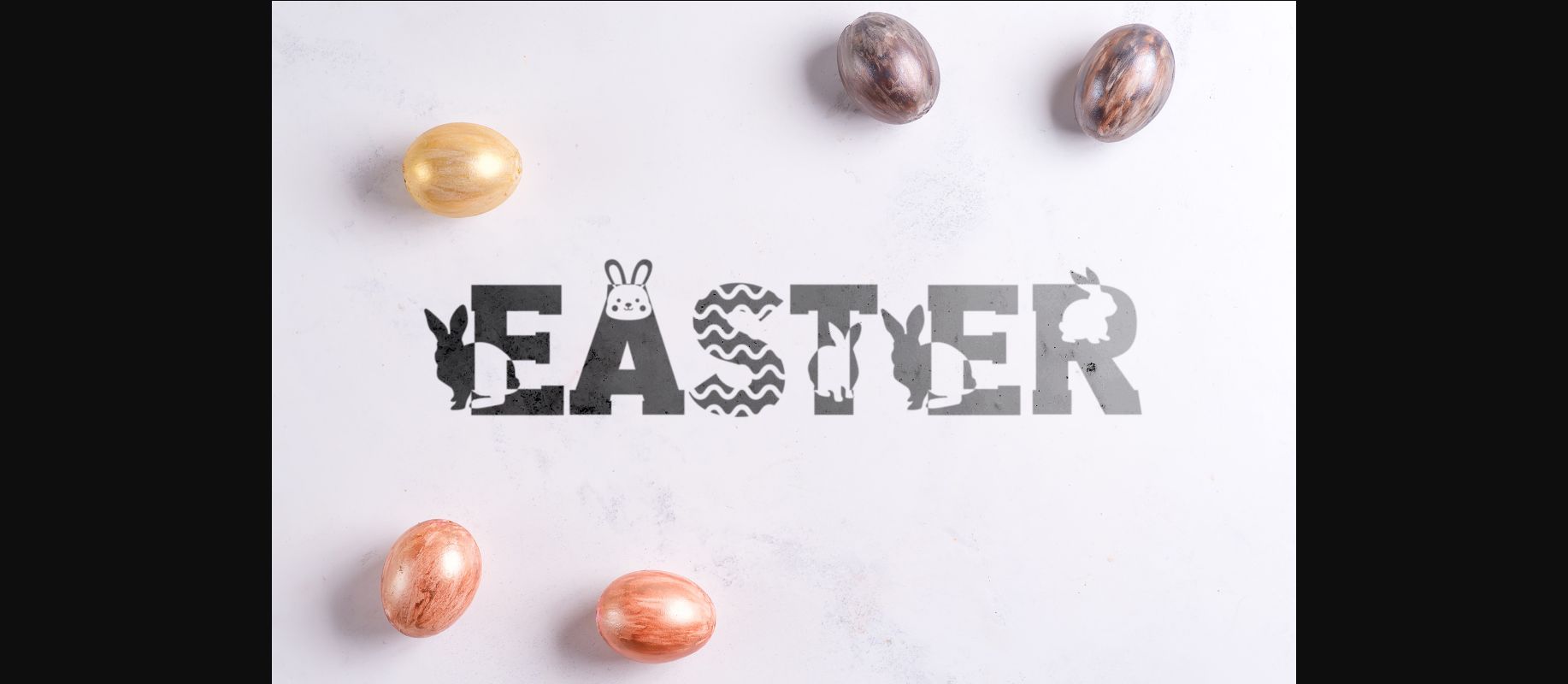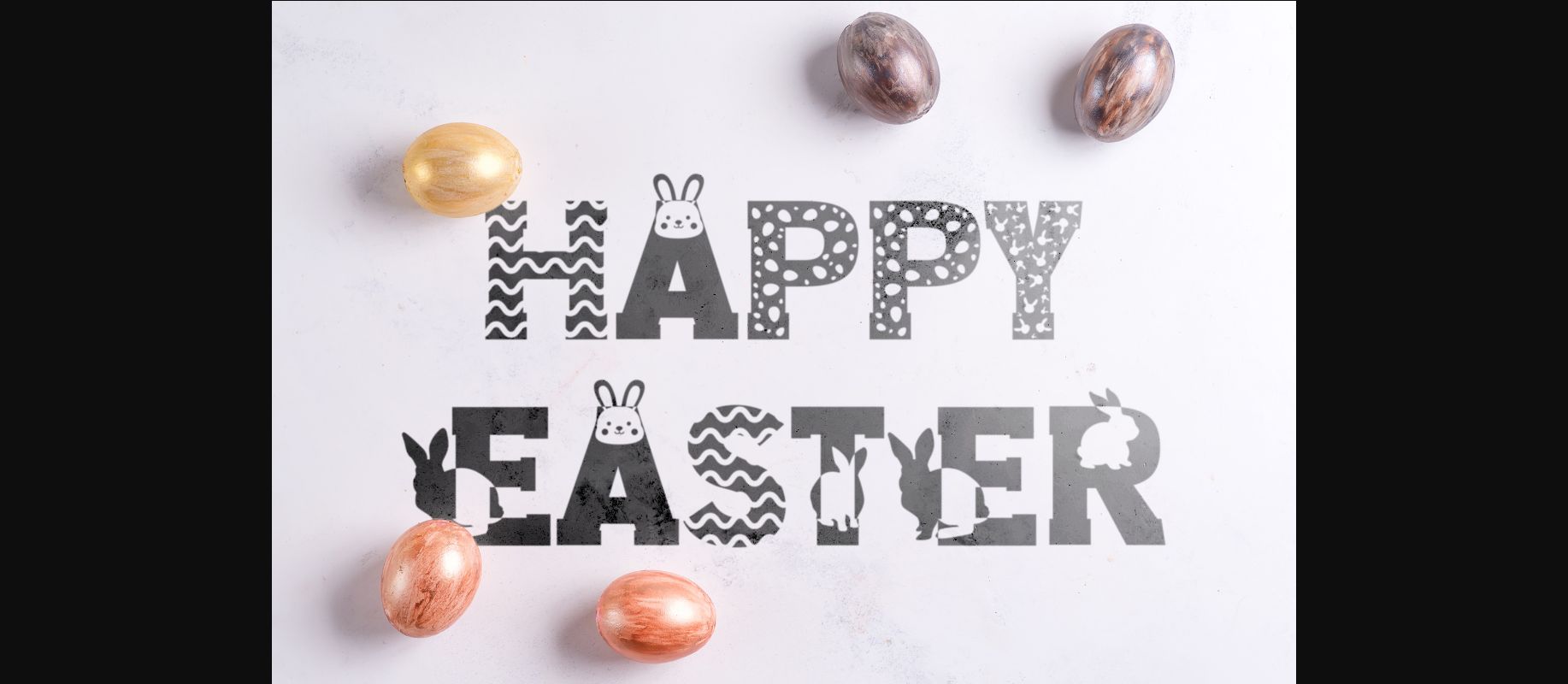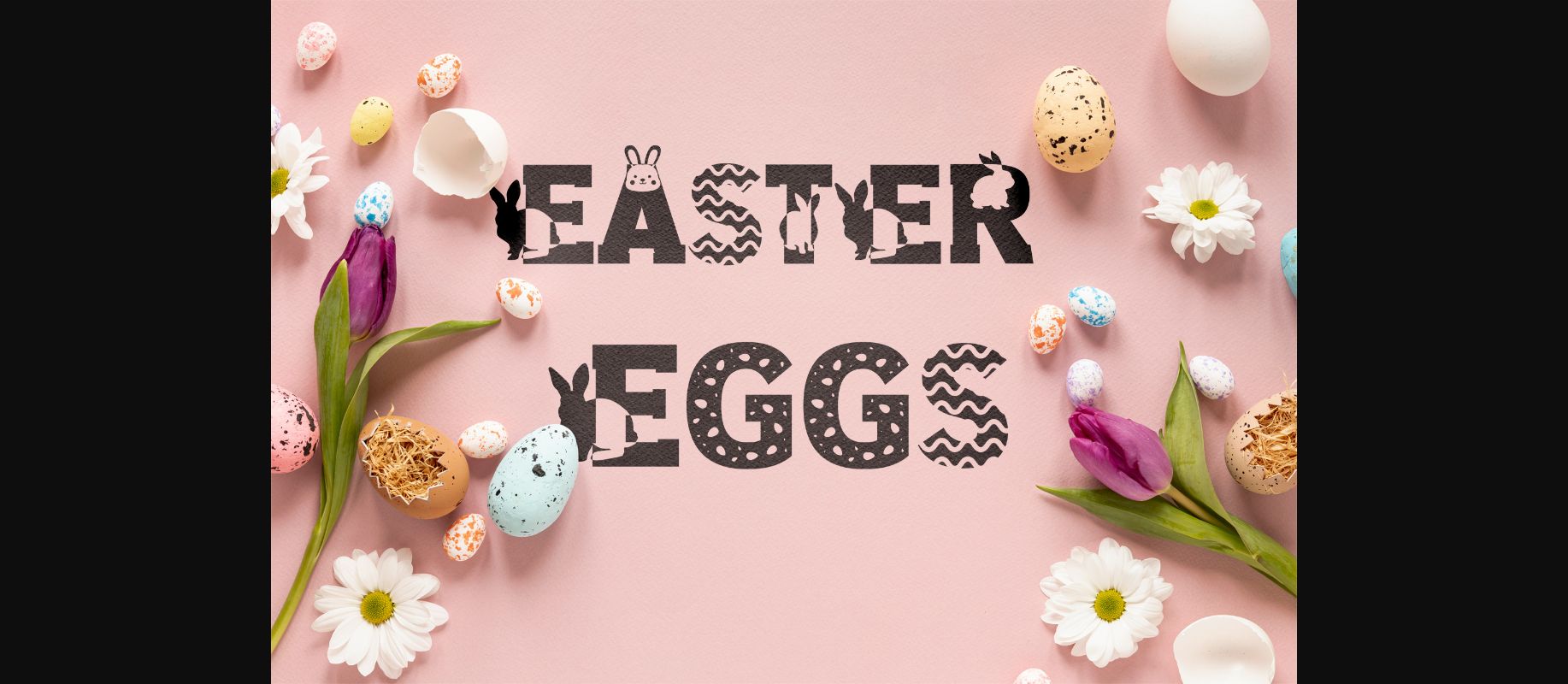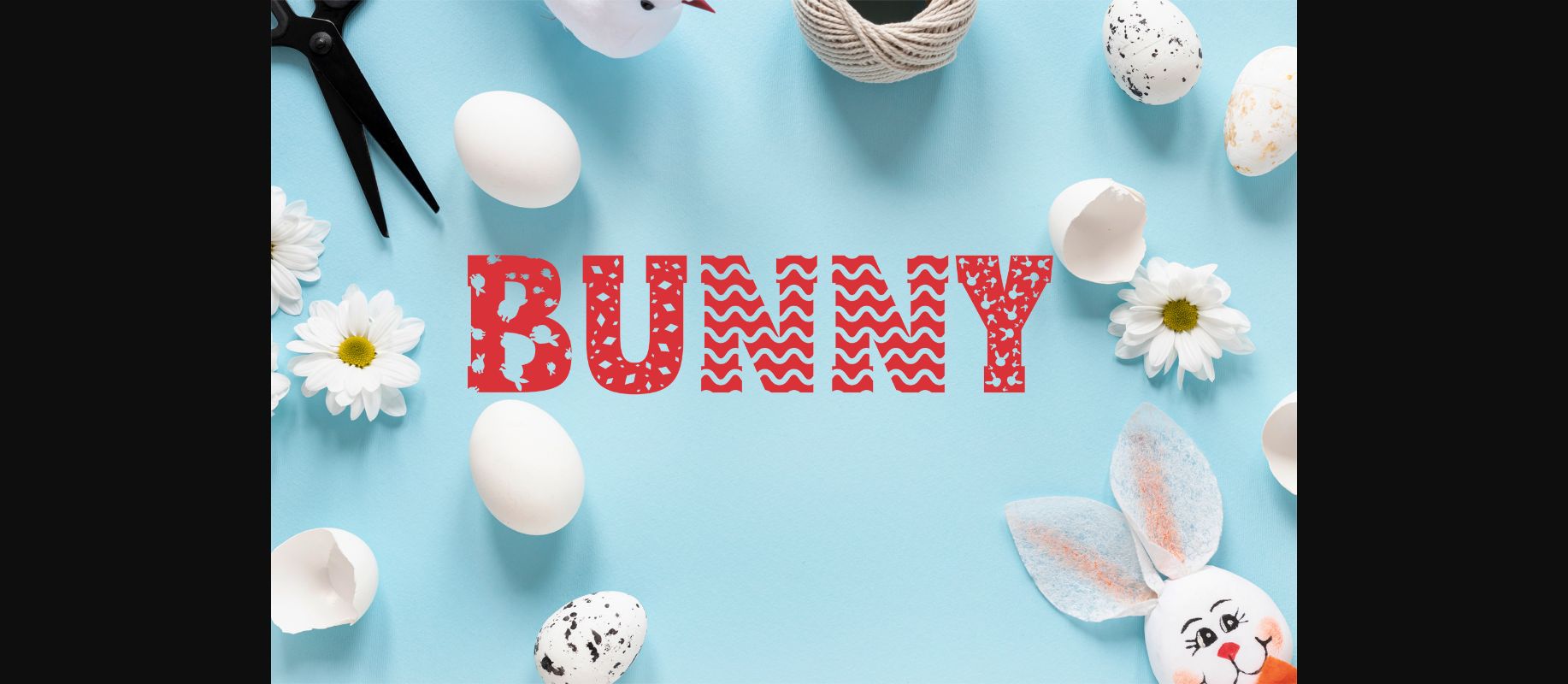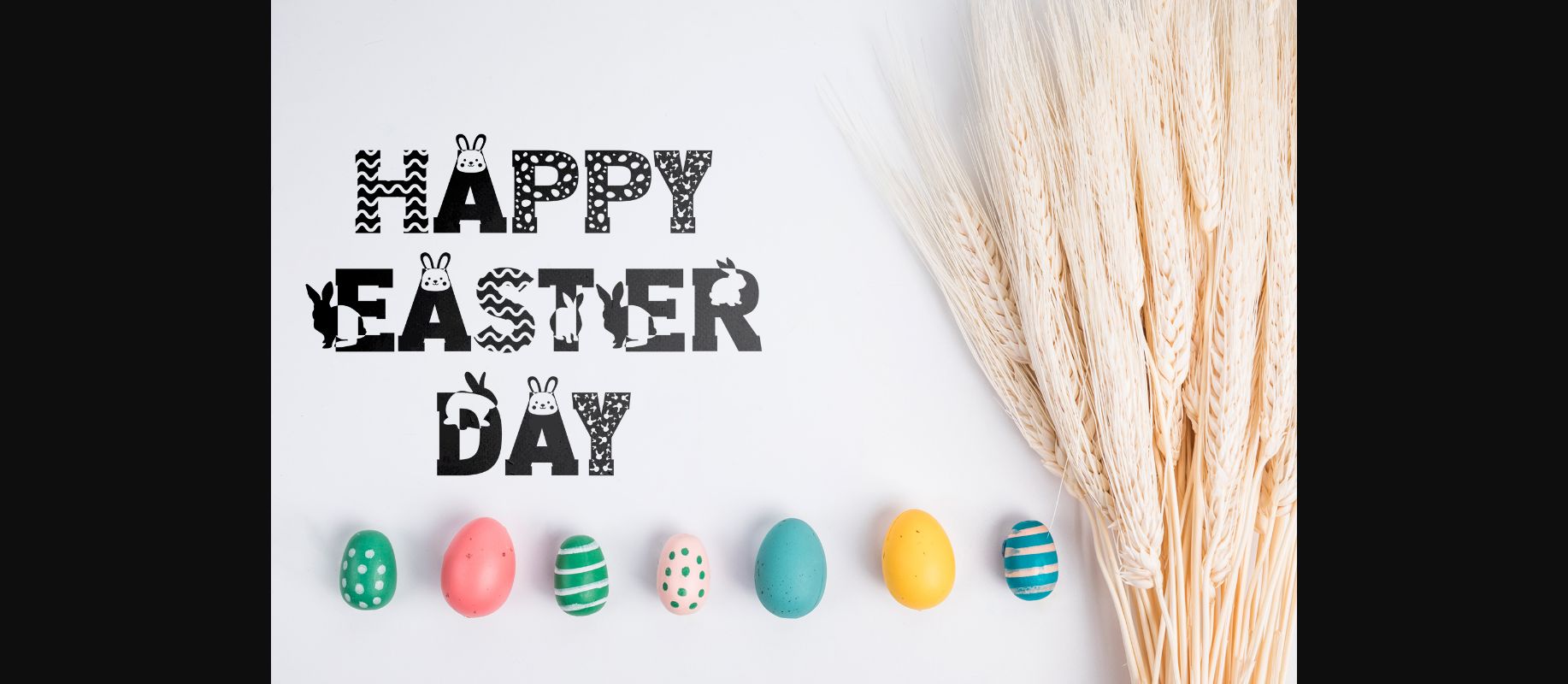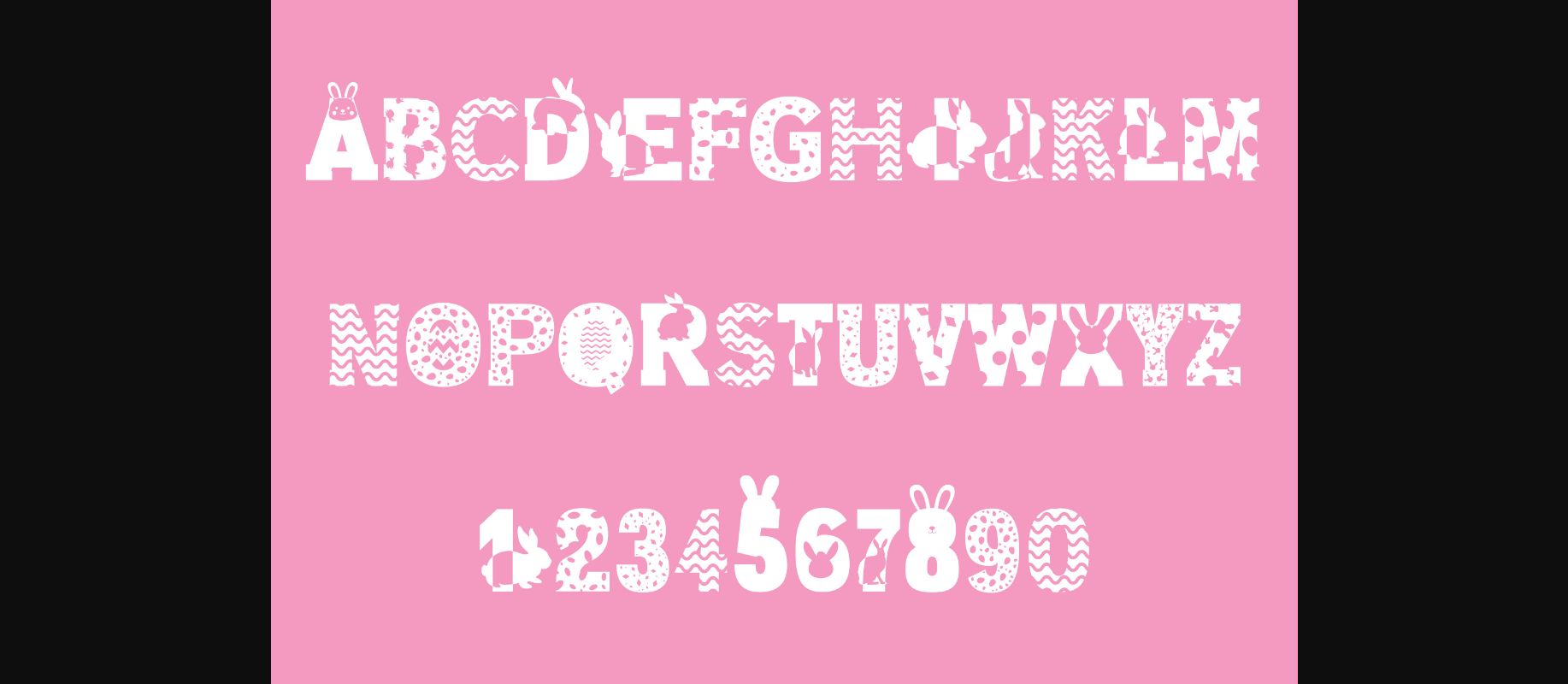
About Easter Font
Easter is an adorable quirky decorative font. It will add an incredibly joyful touch to your designs.
Fall in love with its playful style and use it to create beautiful stationary art, eye-catching social media posts, and much more!